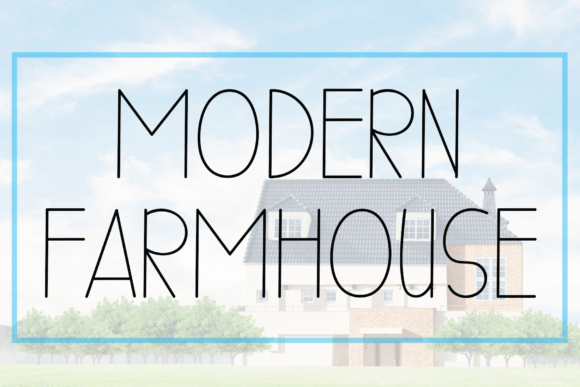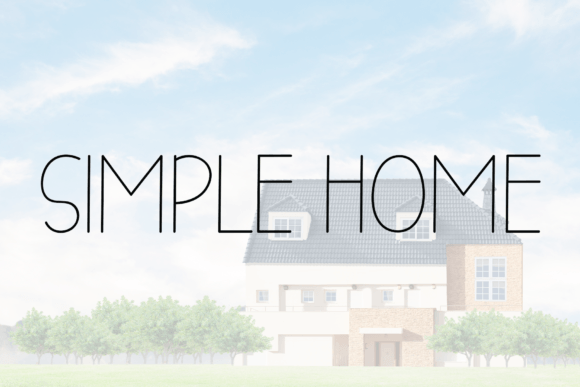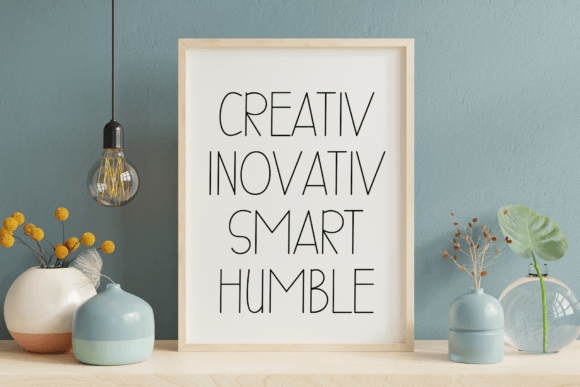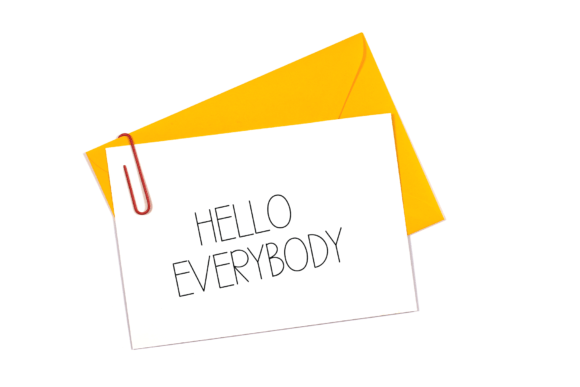
Modern Farmhouse Font
About the Modern Farmhouse Font
Meet Modern Farmhouse Font, a stunning font that brings a touch of elegance and professionalism to any design. Modern Farmhouse is a cool and modern Sans Serif font. Whether you’re using it for crafts, digital design, presentations, or making greeting cards, this font has the potential to become your favorite go-to font, no matter the occasion.
Modern Farmhouse’s clean lines and slightly geometric forms make it ideal for headlines, short text blocks on websites, and branding applications where a contemporary yet approachable feel is desired. It works particularly well for logos, packaging of home goods, and social media graphics. Avoid using it for large blocks of body text or UI elements; its slightly condensed nature can lead to reduced readability in longer passages.
Its personality is best described as friendly and approachable, with a touch of modern sophistication. It conveys a sense of casual elegance, fitting brands related to home décor, lifestyle products, and artisanal goods.
Pairing it with a classic serif like Playfair Display adds a touch of refined contrast, while a script font like Great Vibes can introduce a playful, handwritten element. For a more contemporary look, consider pairing it with a geometric sans-serif like Montserrat.